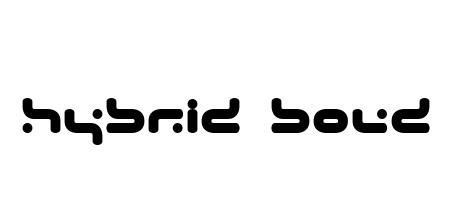
Hybrid
By Beyond Design
Hybrid Bold: A futuristic, rounded sans-serif font. Its bold, chunky characters possess a sleek, almost robotic quality. The rounded terminals and subtly connected letterforms create a sense of both strength and fluidity. It's a font that feels simultaneously modern and slightly retro, suggesting both technological advancement and classic design principles.